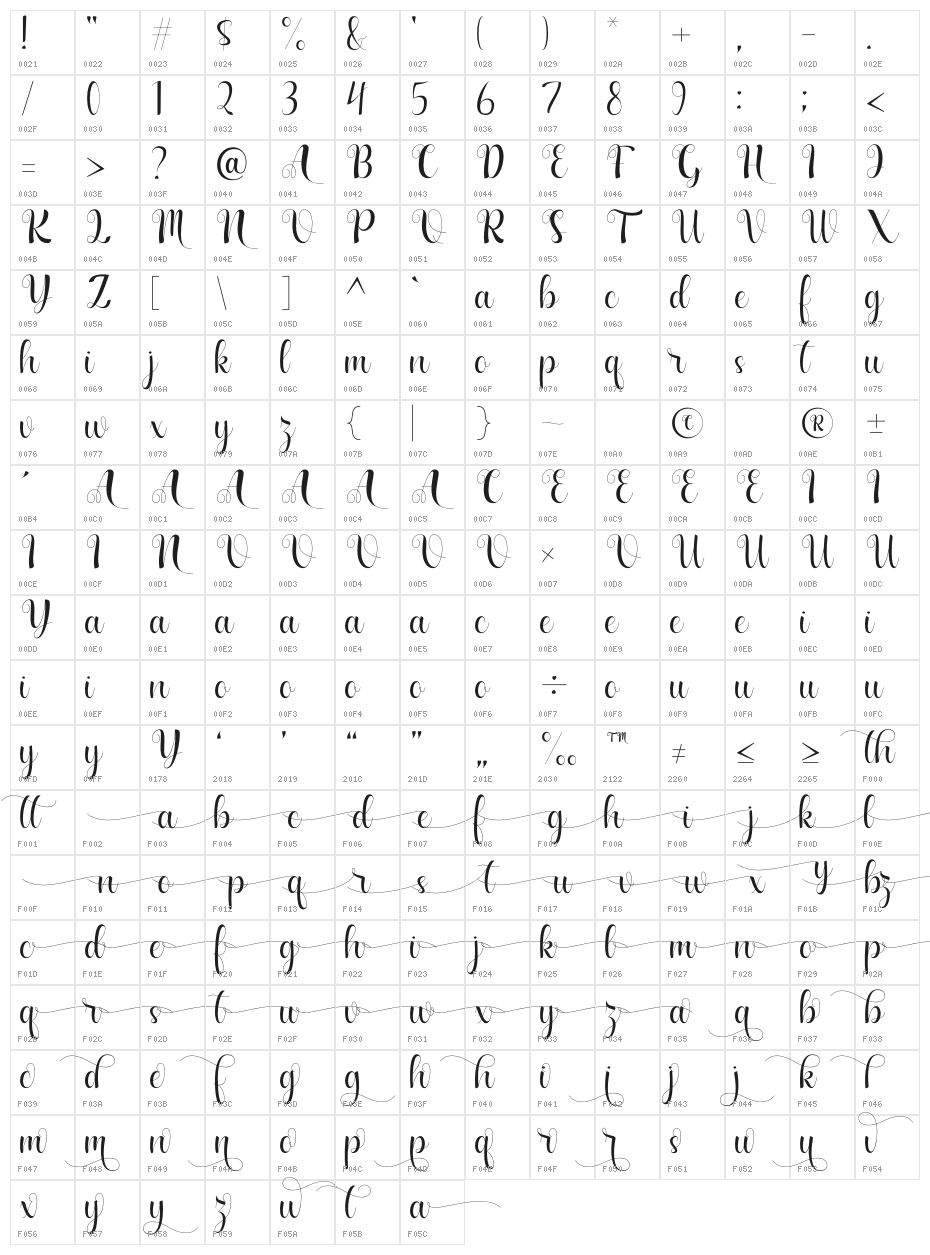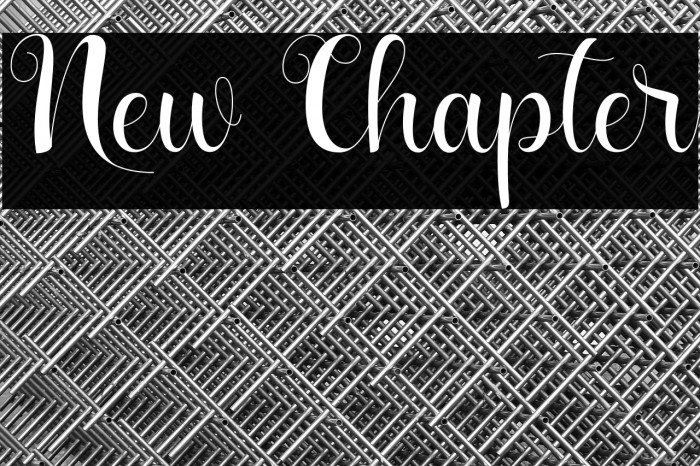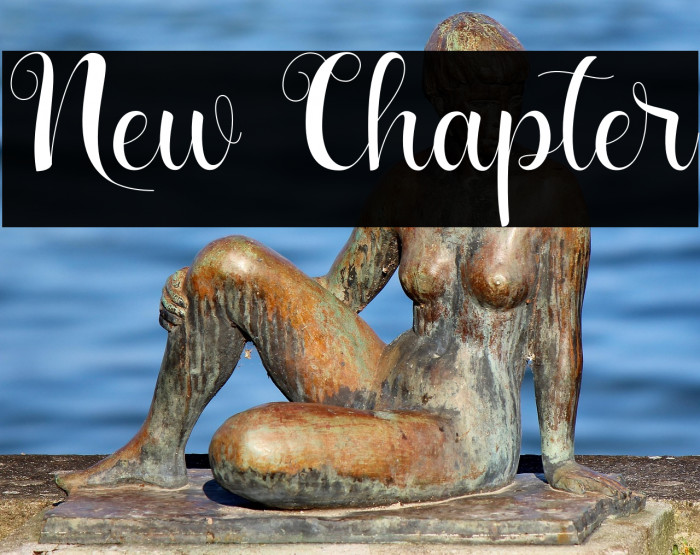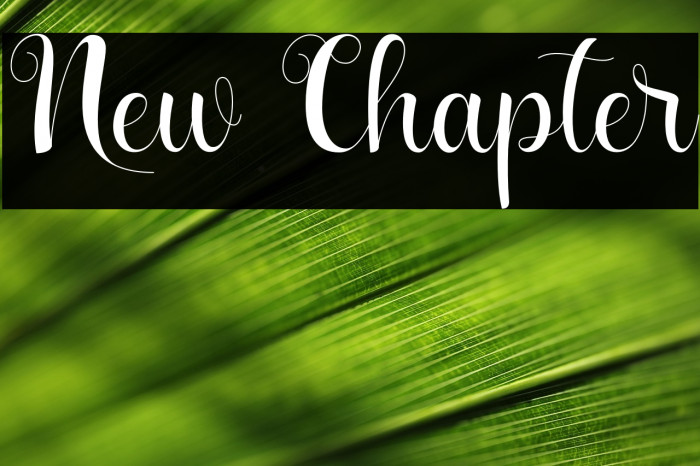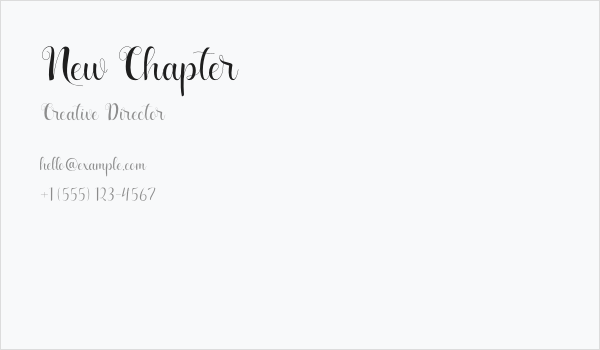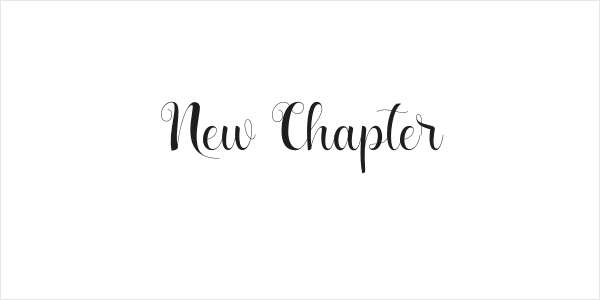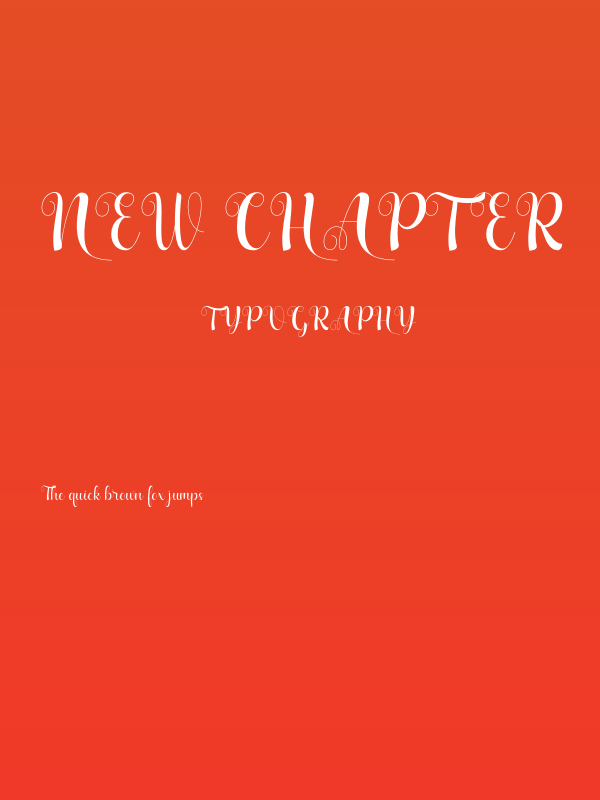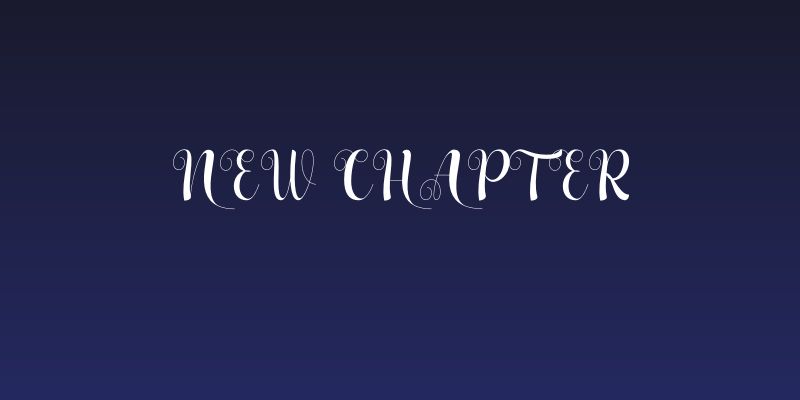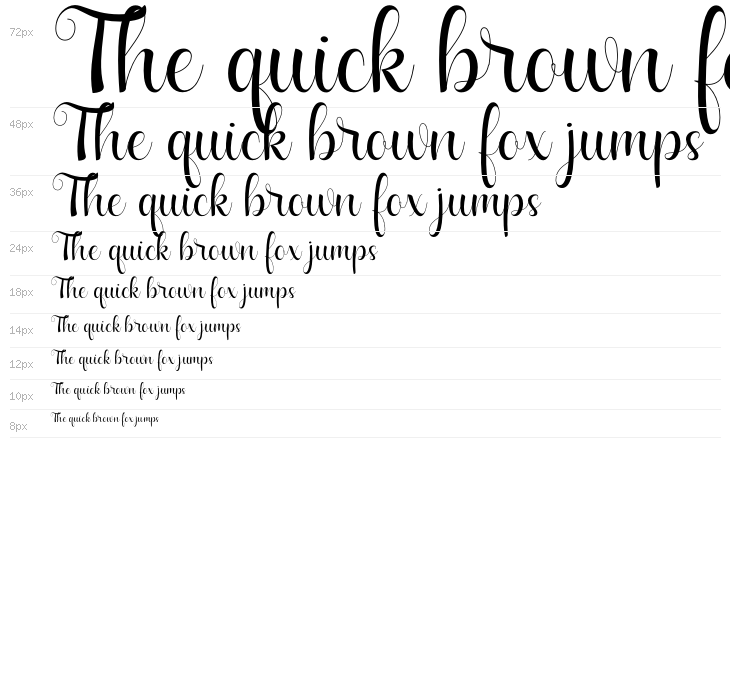
New Chapter Font
New Chapter Description
This elegant script font features beautifully flowing, cursive characters with intricate swashes and loops that add a touch of sophistication and charm. The uppercase letters are particularly ornate, with exaggerated flourishes that make them stand out. The lowercase letters maintain a consistent style, with smooth, rounded forms that enhance readability while retaining a decorative flair. Numbers and special characters are designed to match the overall aesthetic, ensuring a cohesive look across all text. This font is perfect for projects that require a touch of elegance and style, such as wedding invitations, branding, and high-end product packaging.